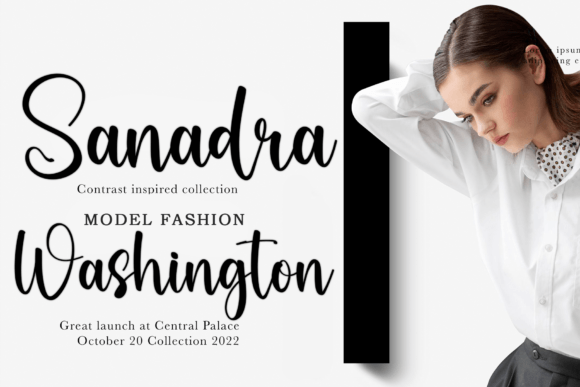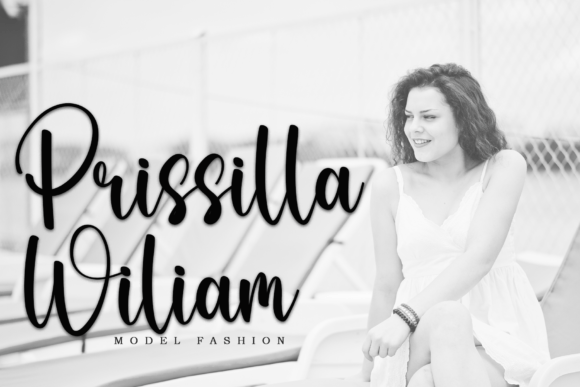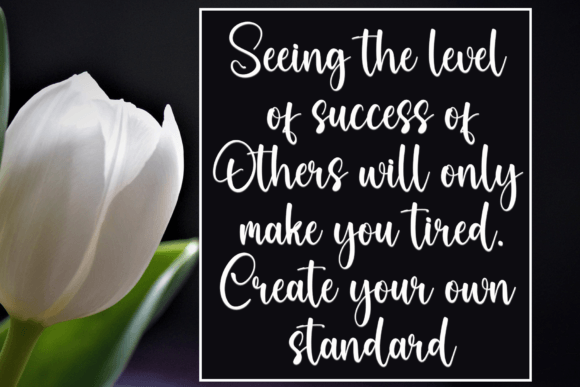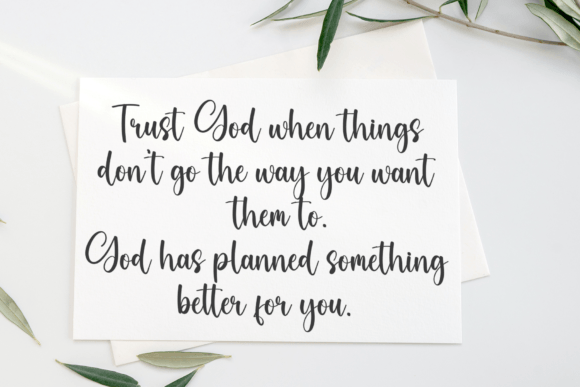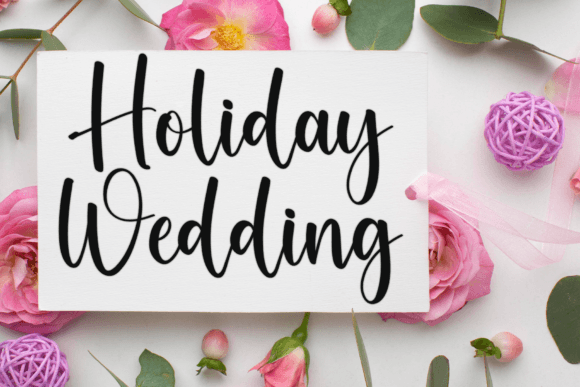
Introducing Branding Font: Elevate Your Visual Artistry with Modern Typography
In the world of visual artistry, typography plays a crucial role in conveying a brand’s message and aesthetic. A well-crafted font can elevate your photography branding, watermarking, and website design, making it an essential element in capturing the essence of your creative journey. Presenting “Branding Font,” a versatile and modern typeface designed to complement visual artistry. With clean lines and a sleek aesthetic, this font is poised to revolutionize the way you express your creativity.
The Power of Typography in Branding
Typography is more than just a means of communication; it’s an art form that can evoke emotions, convey personality, and create a lasting impression. In the context of branding, typography can make or break a brand’s identity. A consistent and well-designed font can become synonymous with a brand, making it instantly recognizable. For photographers, a distinct font can add a professional touch to their watermark, while for website designers, it can enhance the overall user experience.
What Makes Branding Font Stand Out?
Branding Font is designed with the modern creative in mind. Its clean lines, sleek aesthetic, and versatile design make it an ideal choice for various applications, including:
- Photography Branding: Add a professional touch to your watermark, making your images instantly recognizable.
- Website Design: Enhance the user experience with a modern and clean font that complements your visual artistry.
- Watermarking: Protect your images with a discreet yet distinctive font that adds a touch of sophistication.
Key Features of Branding Font
Branding Font boasts a range of features that make it an attractive choice for designers and crafters:
- Clean Lines: A sleek and modern design that ensures clarity and legibility.
- Versatile: Suitable for various applications, from photography branding to website design.
- Easy to Read: Optimized for readability, ensuring your message is conveyed effectively.
- Customizable: Personalize your font to suit your brand’s unique identity.
Branding Font offers a range of benefits for designers and crafters:
- Time-Saving: A pre-designed font saves you time and effort, allowing you to focus on your creative work.
- Consistency: Establish a consistent brand identity across various platforms.
- Professionalism: Elevate your brand’s image with a modern and sleek font.
How to Use Branding Font Effectively
To get the most out of Branding Font, consider the following tips:
- Pair it with Other Fonts: Experiment with different font combinations to create a unique visual identity.
- Adjust Font Sizes: Play with font sizes to create visual hierarchy and emphasis.
- Customize: Personalize your font to suit your brand’s tone and personality.
Branding Font is a game-changer for designers and crafters looking to elevate their visual artistry. With its clean lines, sleek aesthetic, and versatile design, this modern typeface is poised to become an essential element in your creative toolkit. Whether you’re a photographer, website designer, or crafter, Branding Font offers a range of benefits that can help you establish a consistent brand identity and take your creative journey to the next level.